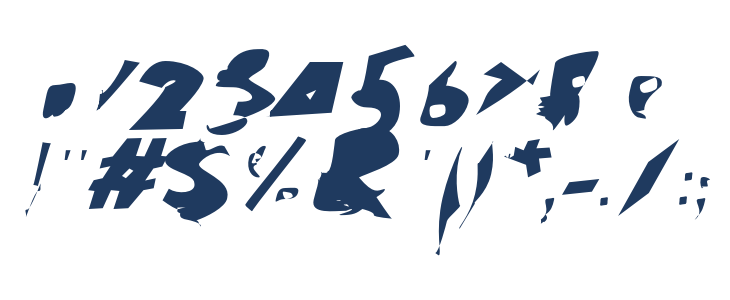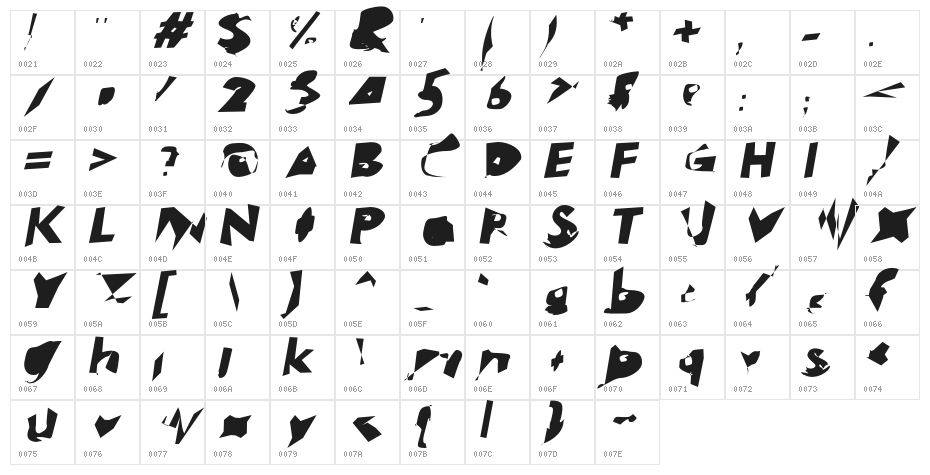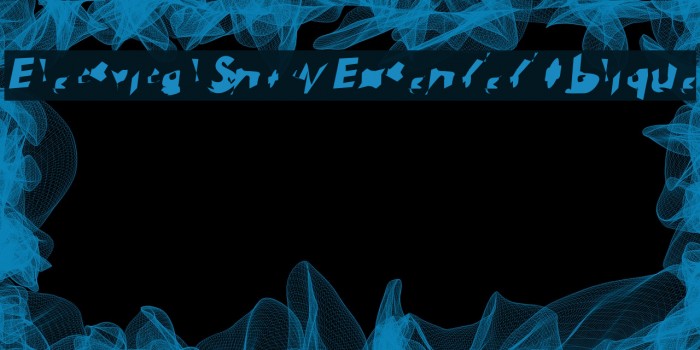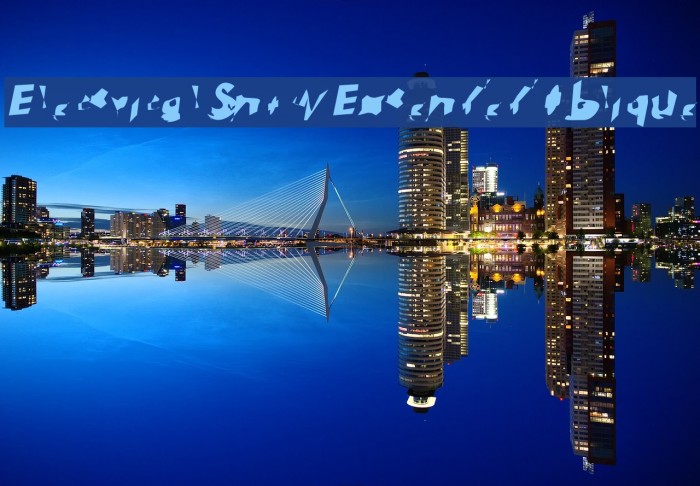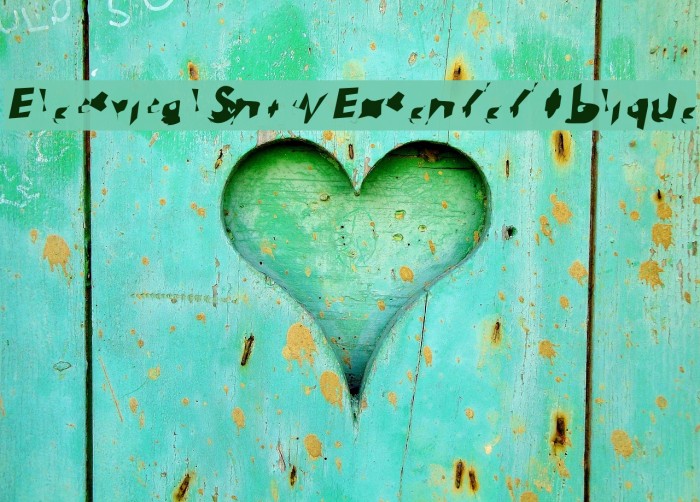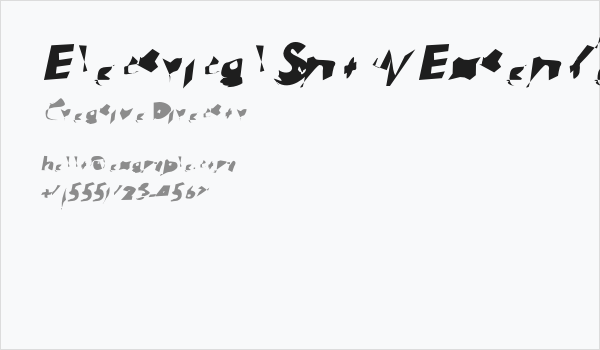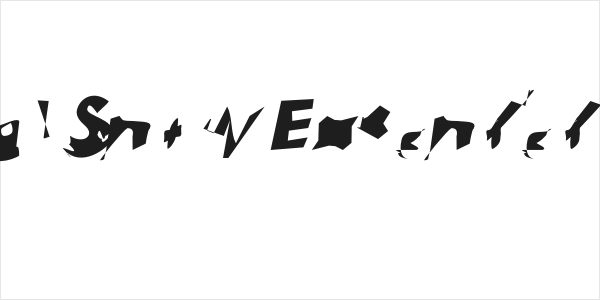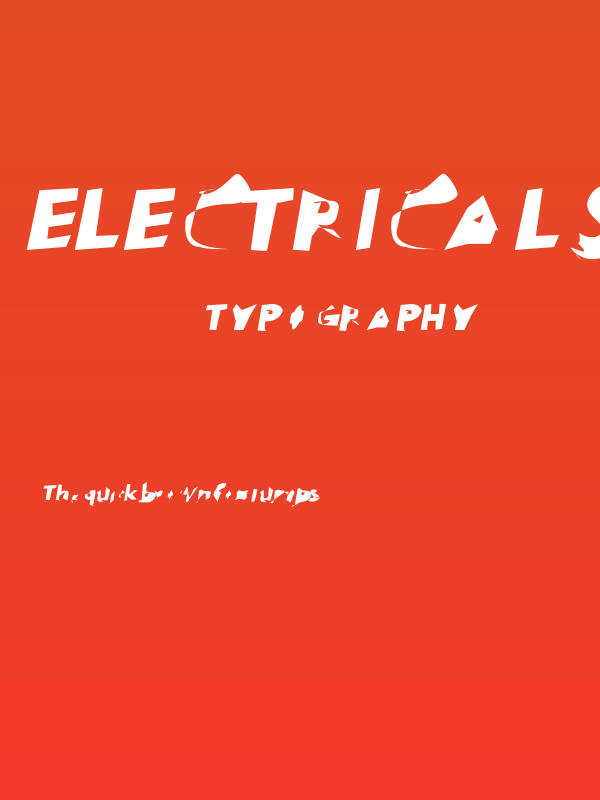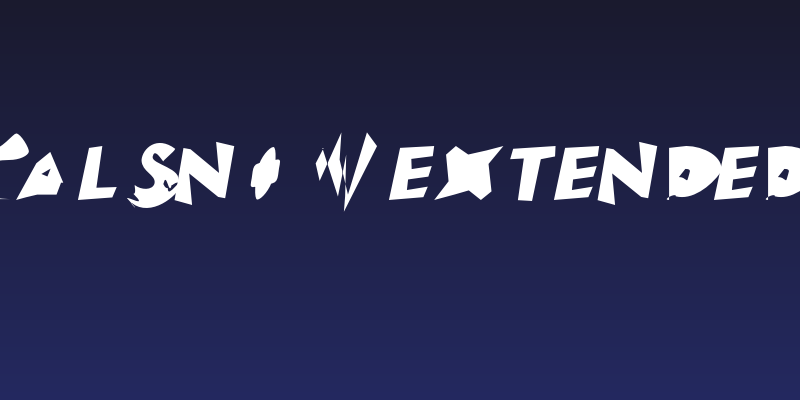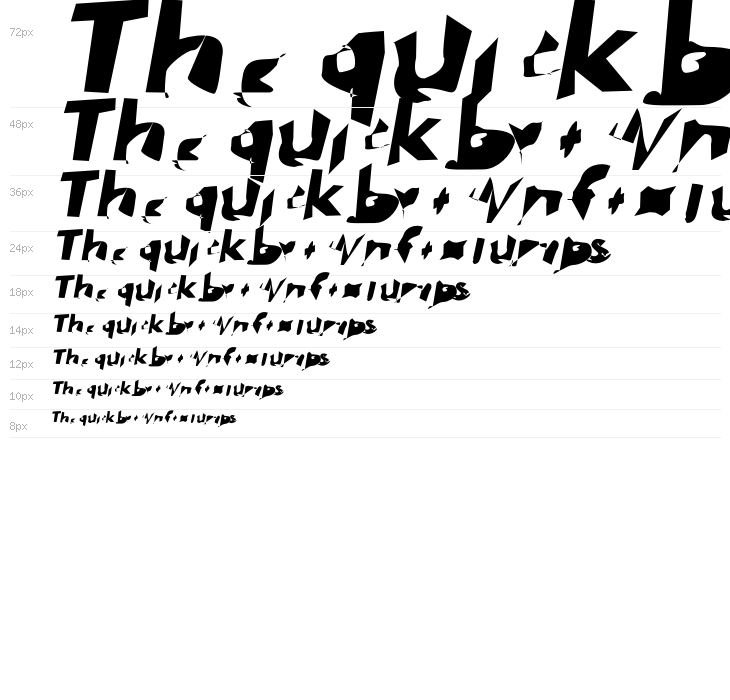
Electrical Snow Extended Oblique Font
Electrical Snow Extended Oblique Description
This font features a bold, dynamic style with a distinct oblique slant, giving it a sense of motion and energy. The characters are heavily stylized with sharp, angular cuts and irregular shapes, creating a fragmented and edgy appearance. The uppercase and lowercase letters maintain a consistent design language, while the numbers and special characters follow the same aesthetic, ensuring uniformity across all glyphs. The font's unique design makes it stand out, ideal for projects that require a strong visual impact.
| Overall Style | Modern, Edgy |
| Proposed Projects | Ideal for music album covers, edgy branding, poster designs, and any project requiring a bold, impactful statement. |